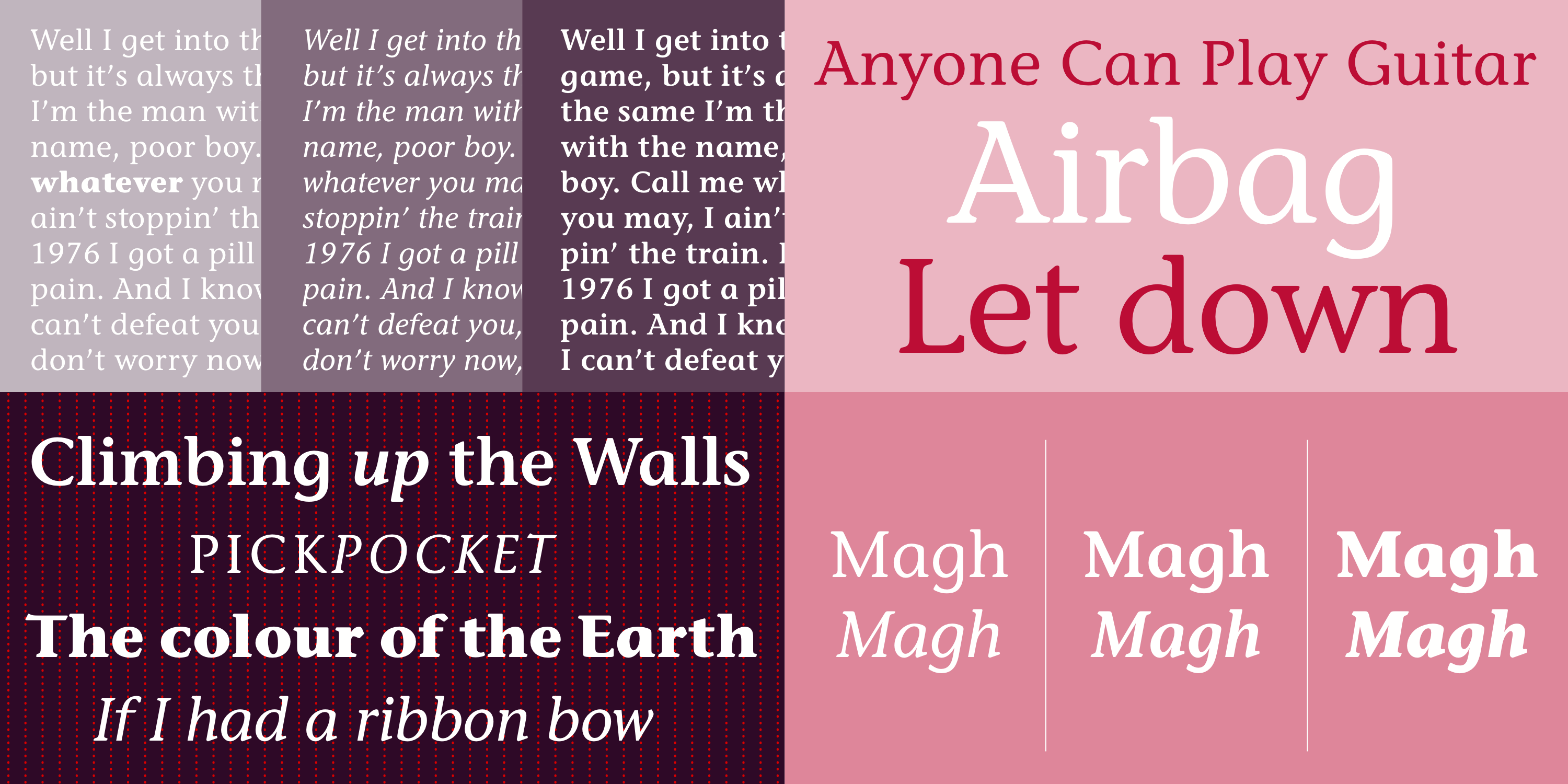
ITC Stone Informal Font is an incredibly versatile typeface that brings a friendly and approachable feel to any design. Imagine it being used for the branding of a cozy coffee shop, giving a personal touch to wedding invitations, or adding a warm, human element to a children's book. Its relaxed yet clear design makes it perfect for websites that aim for a welcoming vibe, newsletters that feel like they're from a friend, or even product packaging for artisanal goods. From educational materials that need to feel less rigid to personal blogs seeking a unique voice, this font offers a delightful blend of professionalism and casual charm.
What makes ITC Stone Informal Font so exciting is its ability to infuse designs with personality without sacrificing readability. It's designed to feel like natural handwriting, yet it maintains the structure and consistency of a professionally crafted typeface. This balance creates a sense of warmth and authenticity that immediately draws the eye. Unlike overly formal or strictly geometric fonts, ITC Stone Informal offers a refreshing informality that can make content feel more engaging and less intimidating. It's this unique blend of handmade charm and thoughtful design that makes it a standout choice for projects aiming to connect with their audience on a more personal level.
The ITC Stone Informal Font family typically includes a good range of weights to offer flexibility in your designs. You can usually find weights such as Book, Medium, and Bold, often with corresponding italic versions. This variety allows you to create effective visual hierarchies, distinguishing between headlines, subheadings, and body text with ease. Whether you need a subtle presence for longer passages or a strong impact for key messages, the different weights within the family provide ample options to ensure your typography is both cohesive and visually appealing.